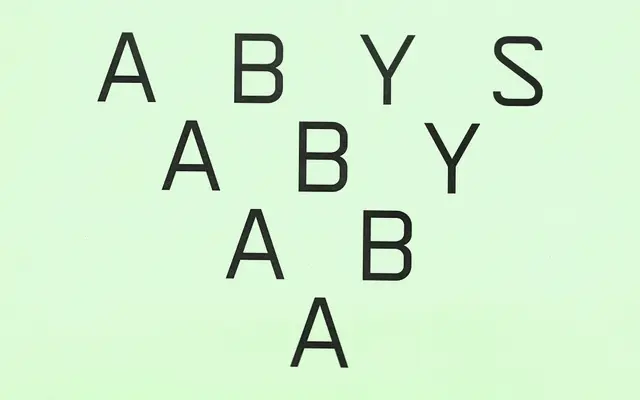
A six-style stencil display family from Bal Foundry, each variant distorting the base letterforms through rotation or twisting to conjure the visual language of post-punk and gothic subculture.
Three structural variants — Regular, Twisted and Rotated — each offered in both standard and stencil cuts, giving six styles in total. The typeface draws its aesthetic from nocturnal, underground imagery: spray-stencilled slogans, gig posters and the visual noise of late-seventies New York. Extended Latin character support makes it usable across a broad range of European languages despite its distinctly niche expressive register.
Crows is a display typeface built around stencil construction with three distinct stylistic variants — Regular, Twisted, and Rotated — each available in standard and stencil cuts, placing it firmly in expressive display territory.